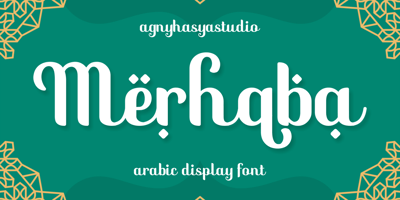
Merhaba
Merhaba font
Merhaba Font Family was designed by Firman Maulana and published by Agny Hasya Studio. Merhaba contains 1 styles and family package options. Merhaba is an Arabic Font Style Featured with Uppercase and Lowercase, Numerals, Punctuation, and OpenType Features. Perfect for your design projects like logos, branding, advertising, product designs, stationery, magazine designs, book/cover title designs, photography, art quotes, Islamic events, labels, product packaging, and more.